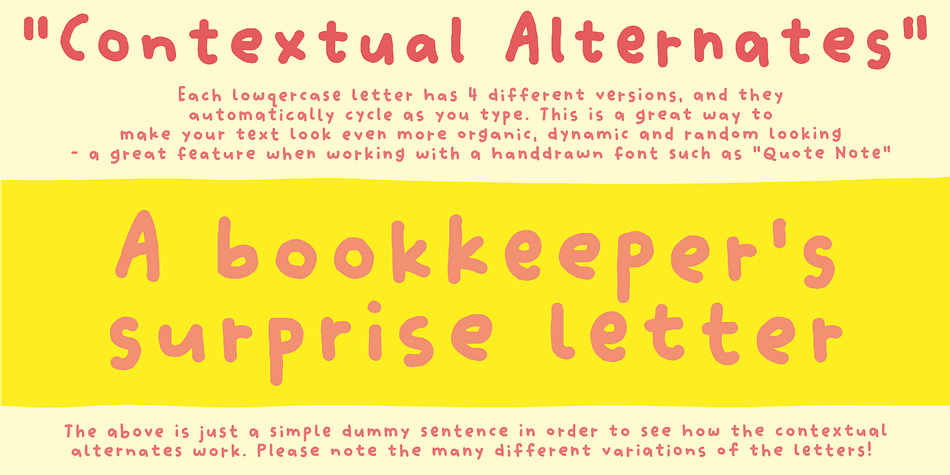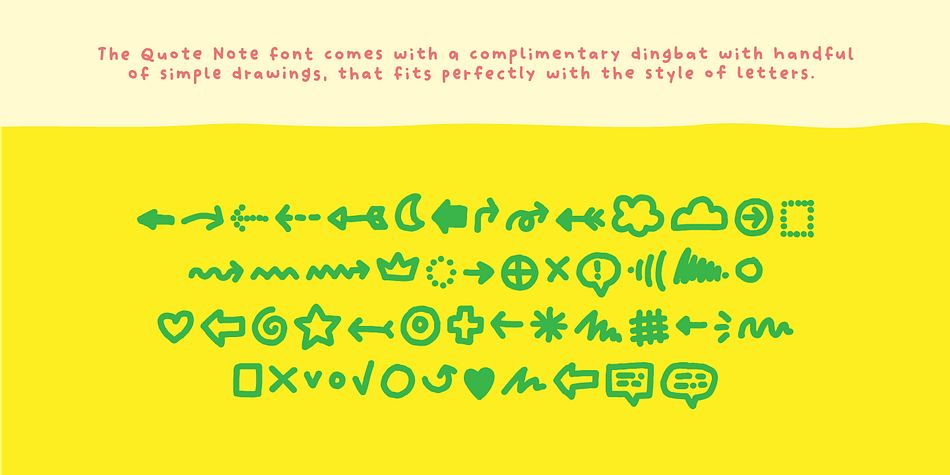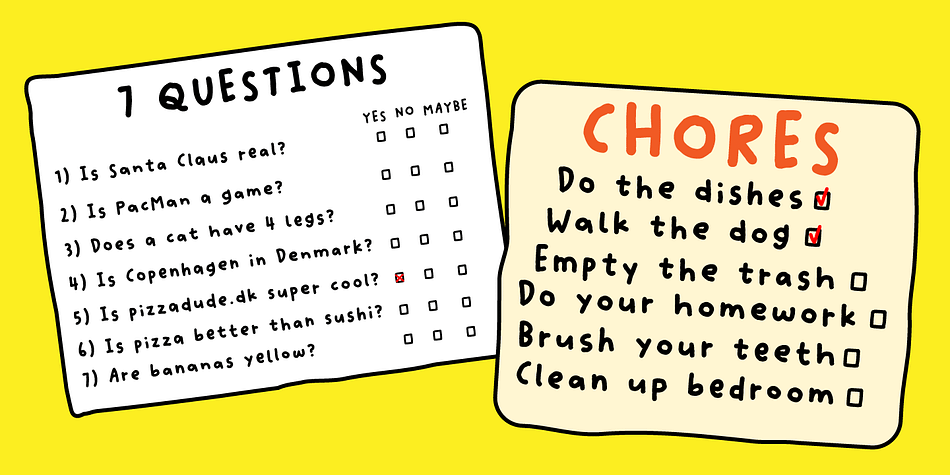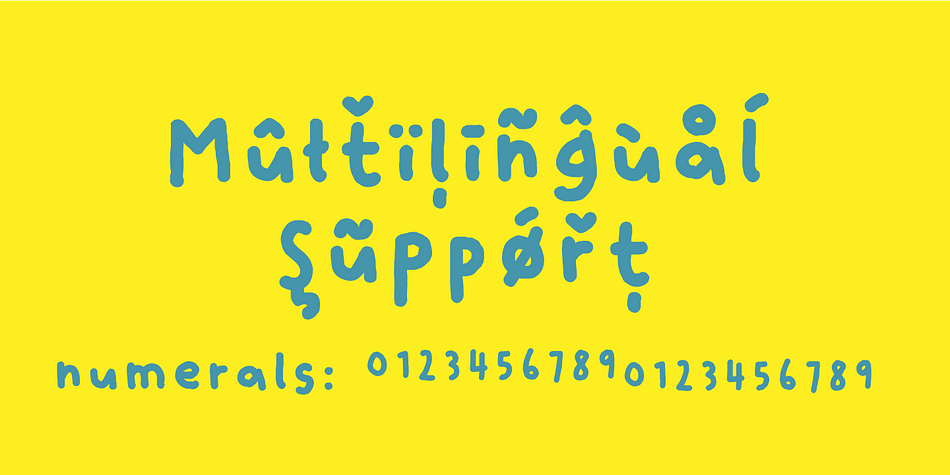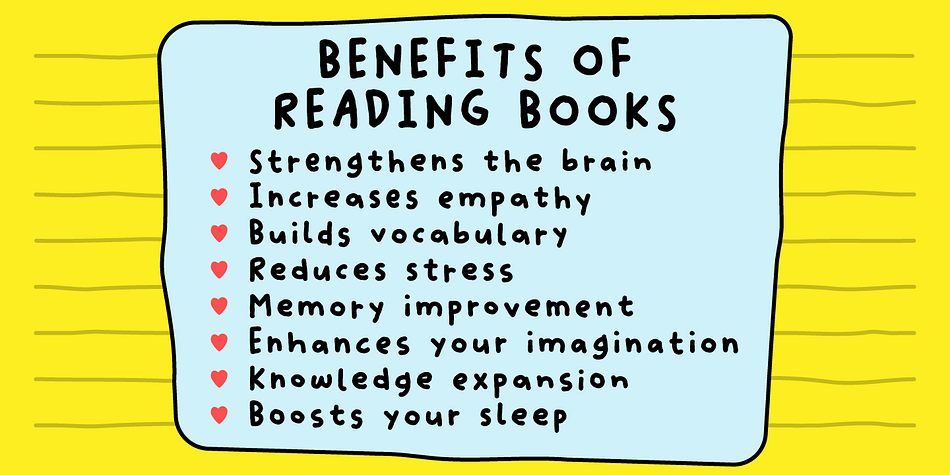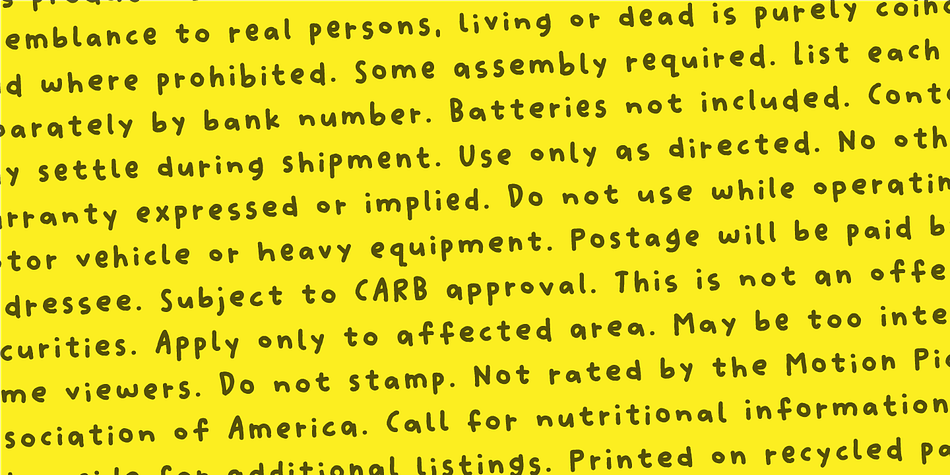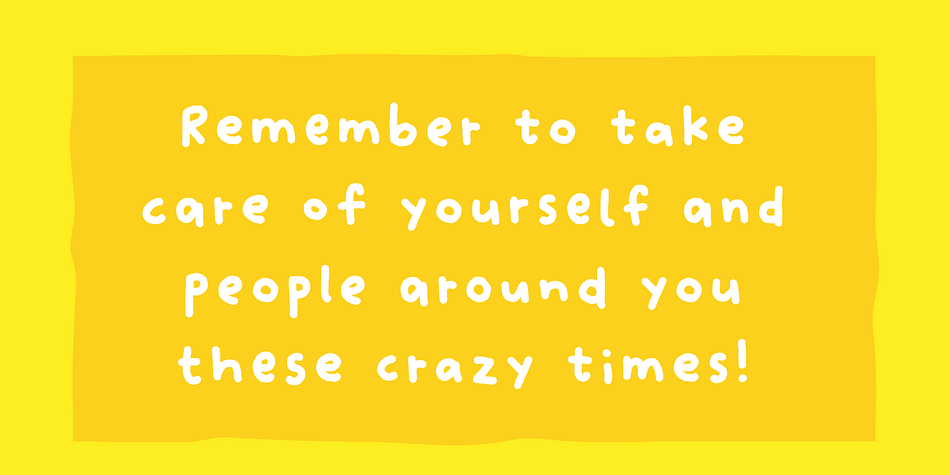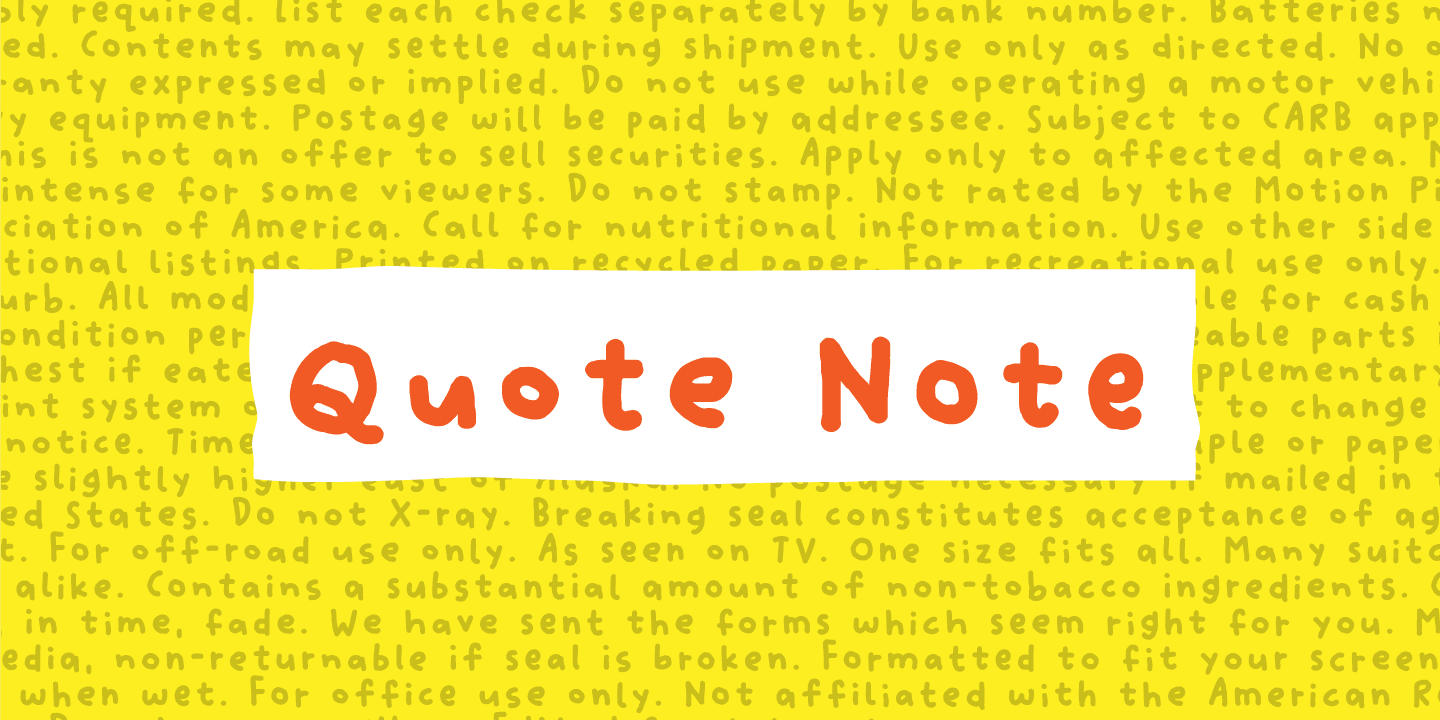
Designed by Jakob Fischer, Quote Note is a hand drawn and dingbat font family. This typeface has three styles and was published by Pizzadude.dk.
With Quote Note I did my best to make a simple and unsophisticated font. I wanted the letters to come out as if they were made with a fat marker on a note. Well, I’ll let you be the judge on how I succeeded. I’ve added 4 different versions of each lowercase letter and even did a simple complimentary dingbat. And of course there is multilingual support!